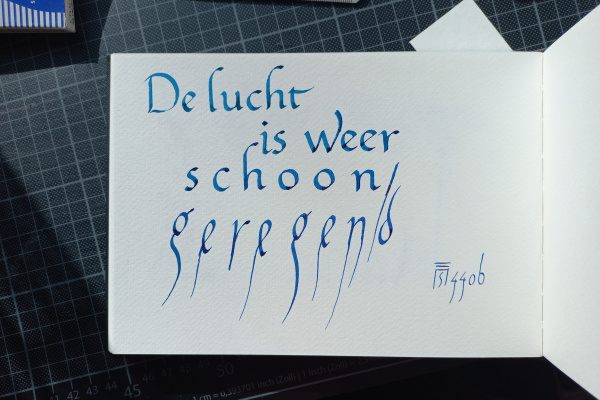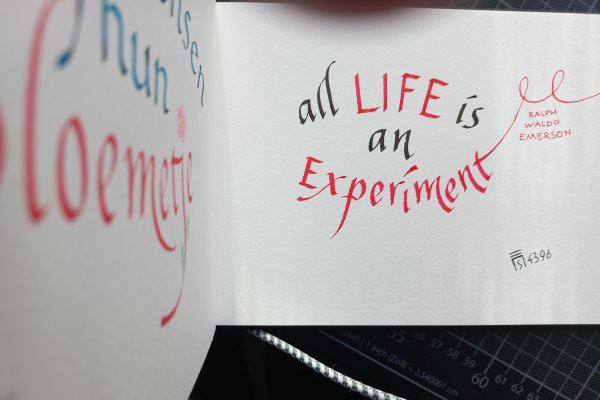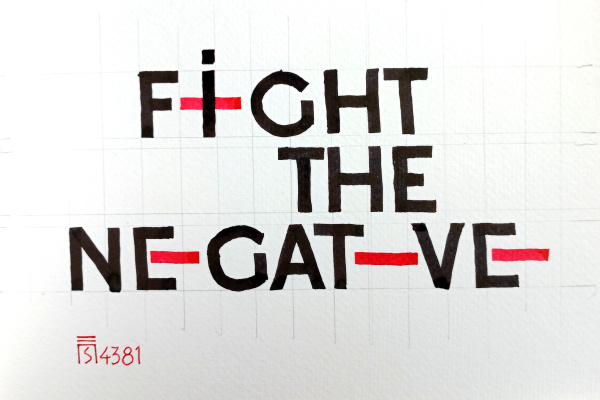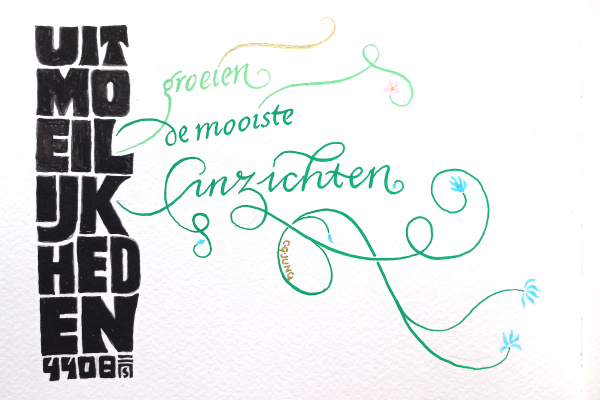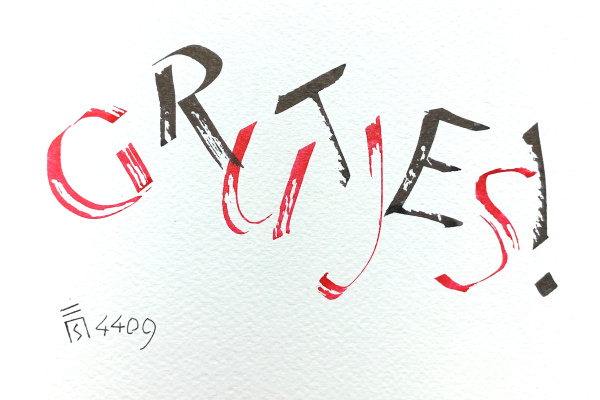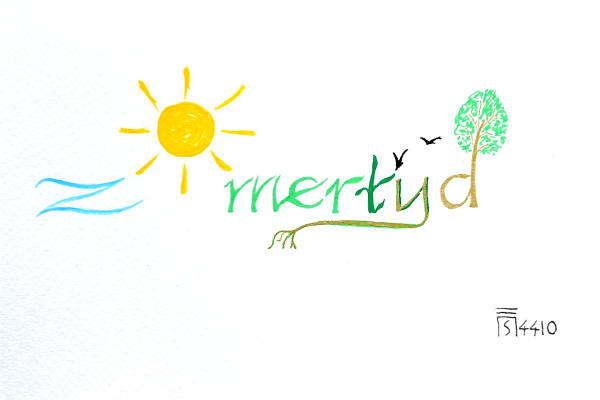
*) "I daresay you haven't had much practice," **)
**) Since 24 february 2014, I have been producing one calligraphic scribble each morning before breakfast, as an exercise, as well as a greeting card from time to time, sent to friends and acquaintances. This page shows the results of this project, and of my attempts to meet my self- imposed schedule for birthday cards and such. Sinds 24 februari 2014 maak ik elke ochtend vóór het ontbijt een kalligrafische krabbel. Deze pagina laat de resultaten van dit project zien, en mijn productie aan kaarten: verjaardagskaarten en dergelijke, en verder van tijd tot tijd een wenskaart voor vrienden en kennissen.
said the Queen. "When I was your age, I always did it for half-an-hour a day. Why, sometimes I've believed as many as six impossible things before breakfast."
- Lewis Carroll, Through the Looking-Glass
BB4411 Biasetton style
BB4405 Maria Boodschap
BB4401 Perzisch nieuwjaar
BB4400 eid-al-fitr („suikerfeest")
BB4399 The Alphabeticians, een korte film over Lida Lopes Cardozo en haar werkplaats, de beste lettersnijders van Groot Brittannië, staat sinds 18 maart op YouTube.
BB4395 give people their flowers
BB4392 Nature is Art's teacher
BB4392 de natuur is de lerares van de kunst